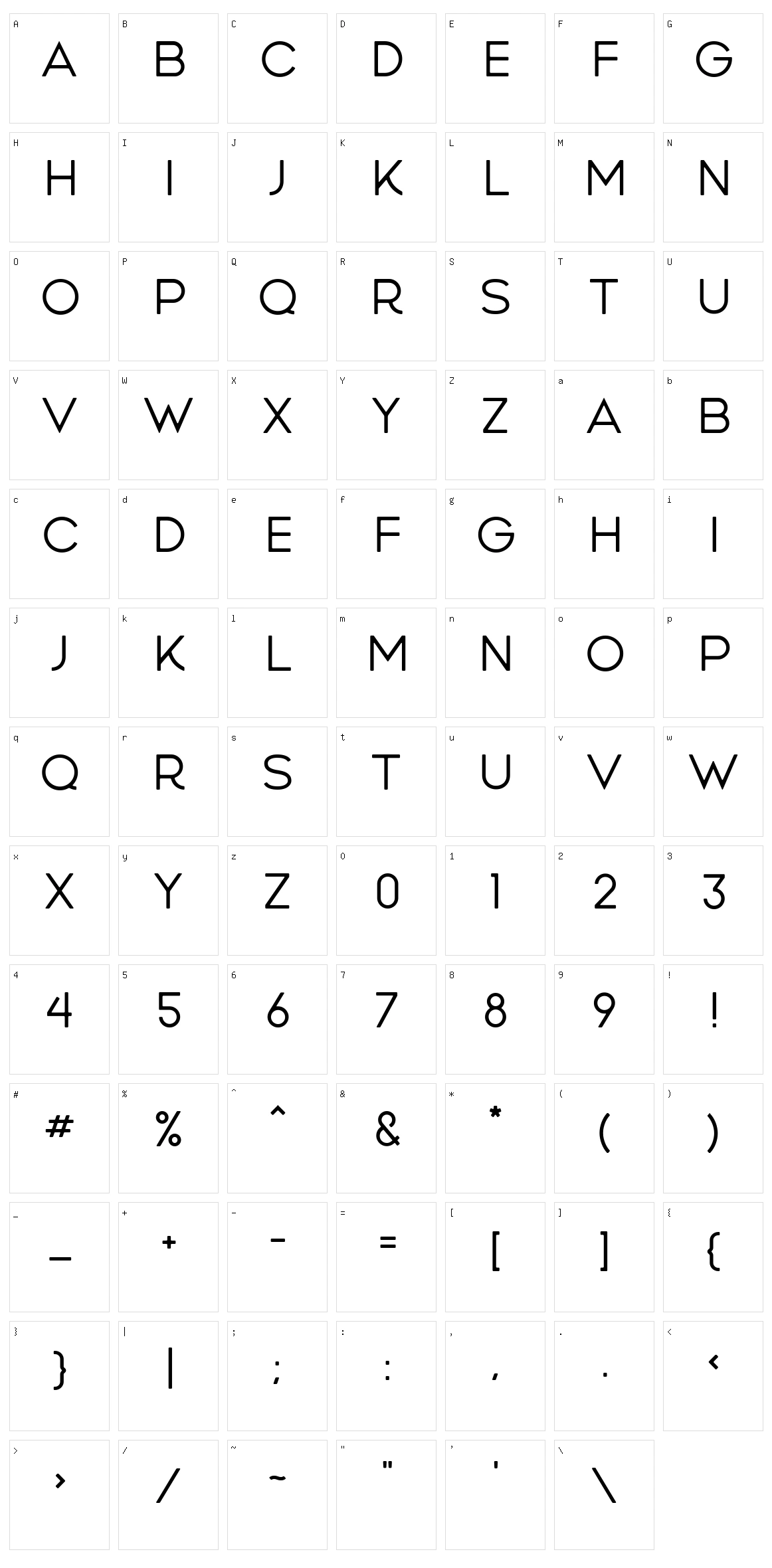
The free font Wandery is carefully designed by Pratama Yudha, showcasing a thoughtful balance of creativity and usability and falls under the Sans serif font style. When you download the ZIP file, it contains only 22.38 KB of font files, making it lightweight and quick to download. Please review the license details below to understand permitted usage and distribution rights. If license information is not available, we recommend using this font for personal projects only or contacting the author directly for commercial usage permissions.